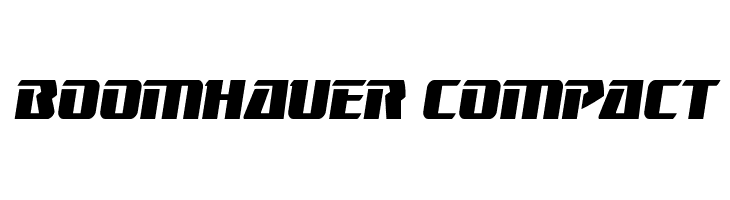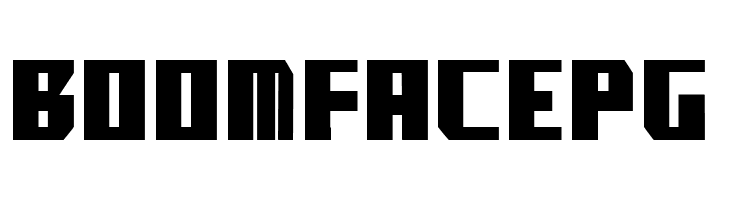
A playful, hand-drawn font with irregular, whimsical characters.
A bold, geometric font with sharp angles and unique cutouts.
A playful, handwritten font with smooth, rounded strokes and a casual feel.
A bold, blocky font with geometric shapes and a modern, assertive style.
A playful, bold font with a whimsical, cartoon-like style and rounded edges.
A playful, bold font with a bubbly, three-dimensional design.
A bold and dynamic script font with flowing, energetic letterforms.
A bold, dynamic script font with flowing, energetic letterforms.
A bold, geometric font with sharp angles and smooth curves for a modern look.